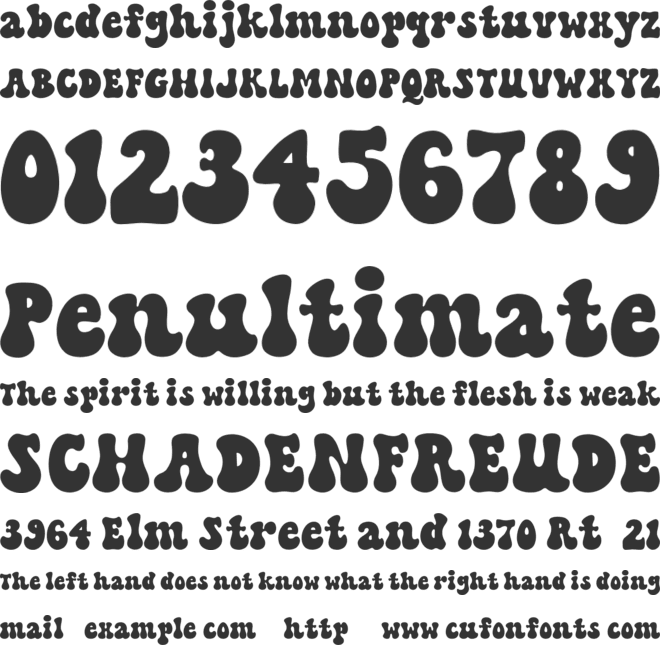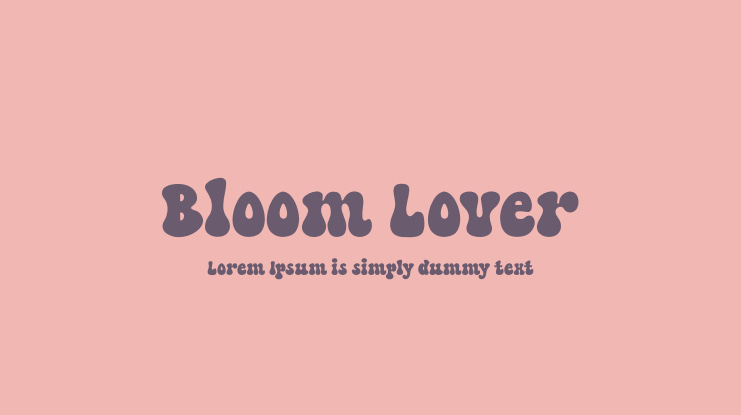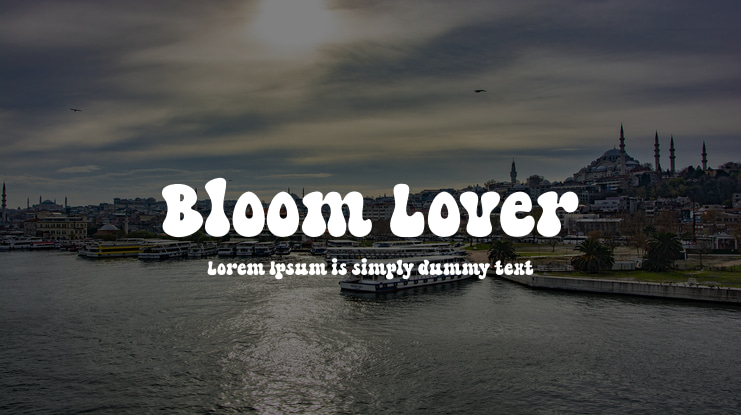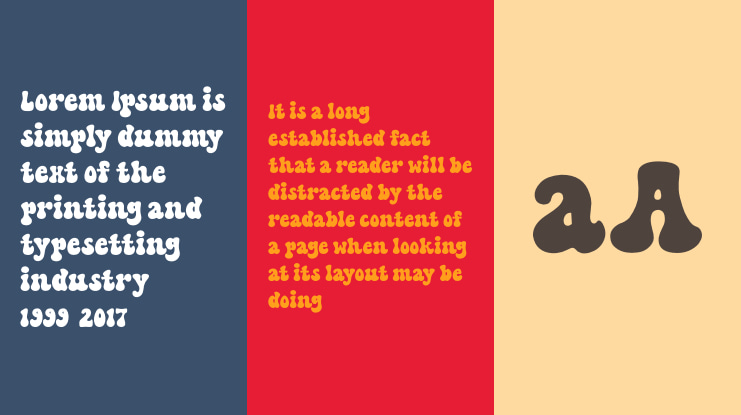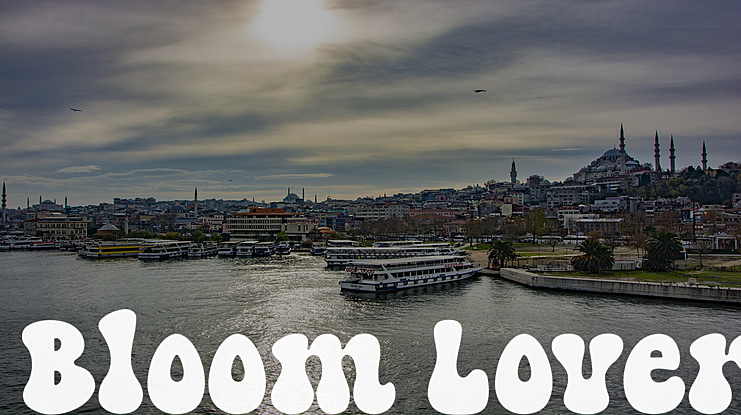
Bloom Lover Font
Introducing Bloom Lover Typeface.
Bloom Lover is a modern, bold and playful display font with retro and groovy style concept. This font comes in 2 styles, Regular and Outline version.